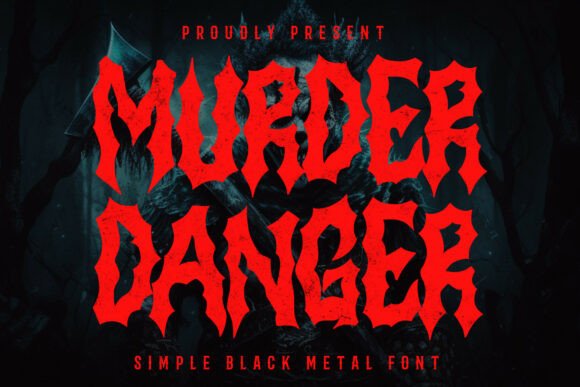
Murder Danger: A Font That Screams Chaos
If you're looking for a font that doesn't just stand out, but dominates the page with unrelenting intensity, Murder Danger might be exactly what you need. This bold, brutal black metal typeface is crafted to cut through the noise and deliver a raw, aggressive visual punch. With its razor-sharp edges and demonic cuts, it's no surprise that Murder Danger has become a favorite among designers working in extreme genres.
What Makes Murder Danger Unique?
Murder Danger isn't your average typeface. It’s built from the ground up to channel the spirit of old-school extreme metal while sharpening its teeth for modern design needs. The uppercase letters are especially striking — they scream with energy, each stroke and angle contributing to an overall sense of menace and power.
This font features:
- Razor-sharp edges that give every character a cutting presence
- Demonic cuts inspired by the chaotic aesthetics of black metal and deathcore
- A menacing structure designed to evoke fear and fascination
- High-impact visuals ideal for making strong statements in dark-themed projects
Who Should Use Murder Danger?
While Murder Danger may seem like it was born solely for the metal scene, its applications stretch far beyond band logos or album covers. Designers across multiple industries can harness this font to create high-impact visuals when they want to convey aggression, intensity, or rebellion.
Here are some of the most common use cases:
- Metal Band Logos: If you're creating a logo for a death metal or black metal band, Murder Danger adds a level of ferocity that matches the music perfectly.
- Album Artwork: Deathcore, grindcore, or any subgenre of extreme metal benefits from a font that screams as loudly as the music does.
- Horror Movie Posters: The font’s sharp and chaotic style works wonders in horror marketing, where first impressions matter most.
- Underground Zines: Whether printed or digital, zines dealing with occult themes or underground culture gain a powerful edge with Murder Danger.
- Spooky Apparel: T-shirts, hoodies, or promotional materials for Halloween events look more intimidating with this font.
Why Choose Murder Danger Over Other Fonts?
In a world filled with sleek, minimalist typography, Murder Danger stands out by doing the opposite. It’s not subtle. It’s not polite. It demands attention and refuses to be ignored. This makes it perfect for projects where subtlety is the enemy of impact.
Some key reasons to consider Murder Danger include:
- Its ability to instantly communicate darkness and danger without needing extra effects
- It’s highly readable despite its aggressive nature, which is rare for fonts in this category
- The versatility to work both digitally and in print, maintaining clarity and intimidation at any size
- It’s tailored for professionals who understand that sometimes, you need a font that looks like it belongs on a battlefield
Real-World Examples of Murder Danger in Action
Let’s dive into how real users have applied Murder Danger to their creative work:
- A local black metal band used it for their stage name and found that it immediately set the tone for their brand identity.
- An independent filmmaker incorporated it into a horror movie poster and saw a 40% increase in social media shares compared to previous posters using other fonts.
- A small business owner selling custom t-shirts for Halloween events used Murder Danger on product listings and noticed a stronger emotional response from customers.
These examples show that Murder Danger isn’t just about style — it’s a strategic choice that can influence audience perception and engagement.
Where Can You Apply Murder Danger?
Murder Danger isn’t limited to one niche or industry. Its appeal spans several areas where boldness and originality are valued. Here are a few more places you might find it useful:
- Event Branding: Promoting a death metal festival? Let the font do the screaming for you.
- Apparel and Merchandise: Create merchandise that speaks louder than words, especially for fans of horror and heavy music.
So if you're ready to let your designs scream louder and dig deeper into the realm of the macabre, Murder Danger is waiting to unleash its full potential on your next project. Just remember to use it wisely and always keep your audience in mind.